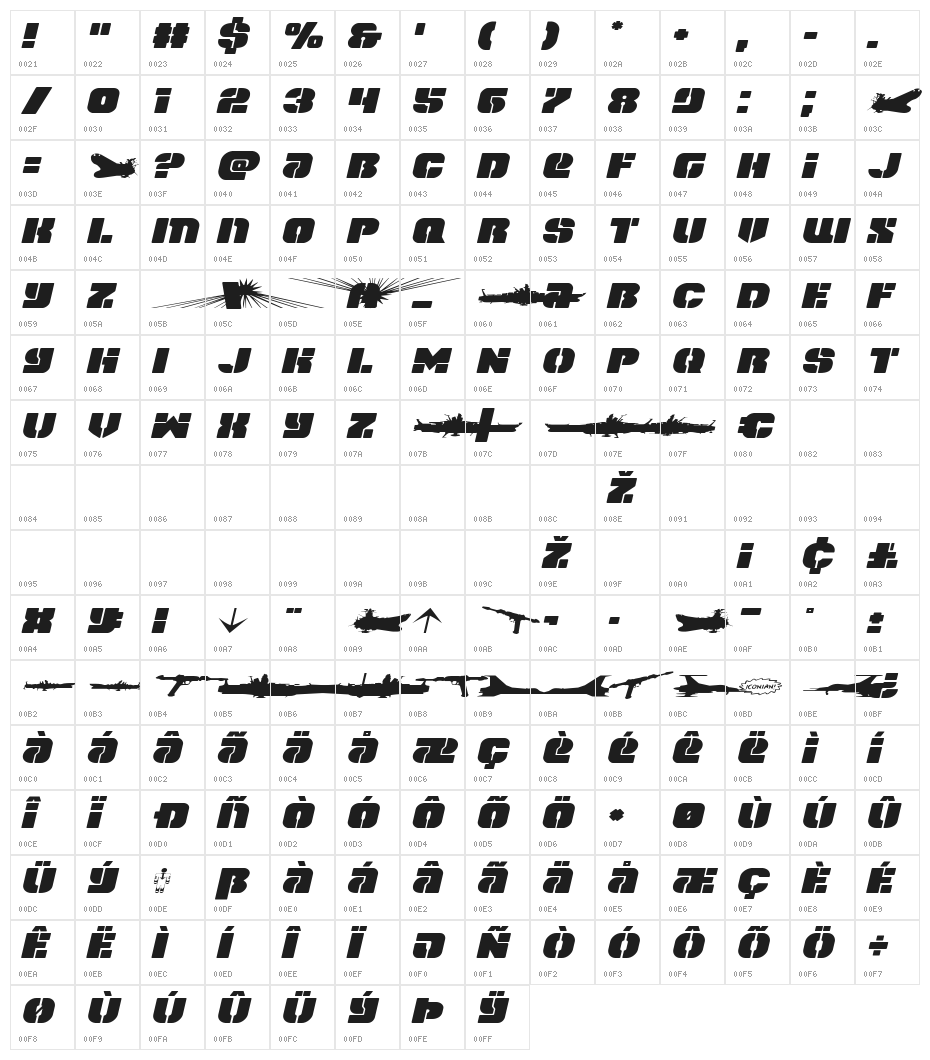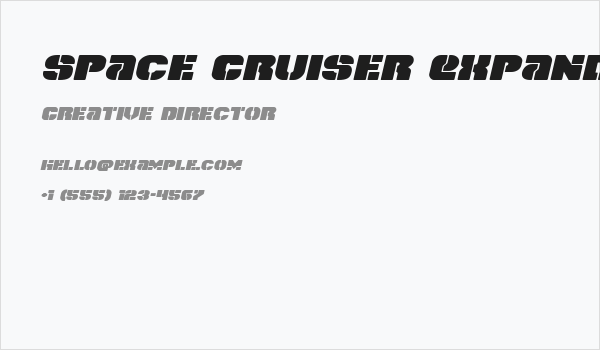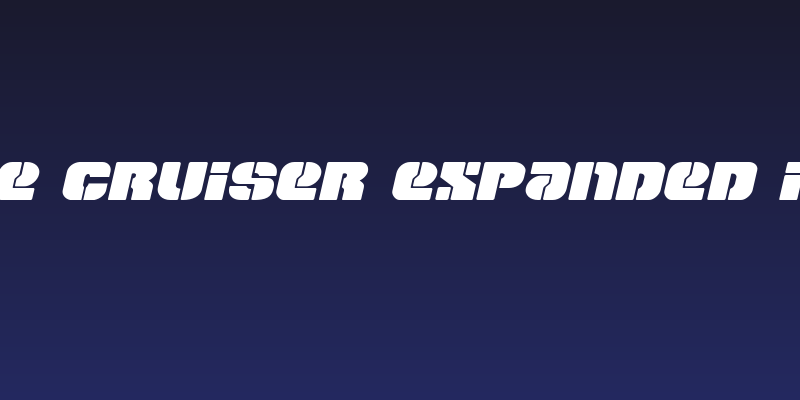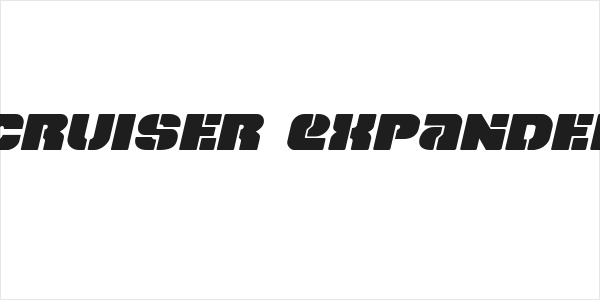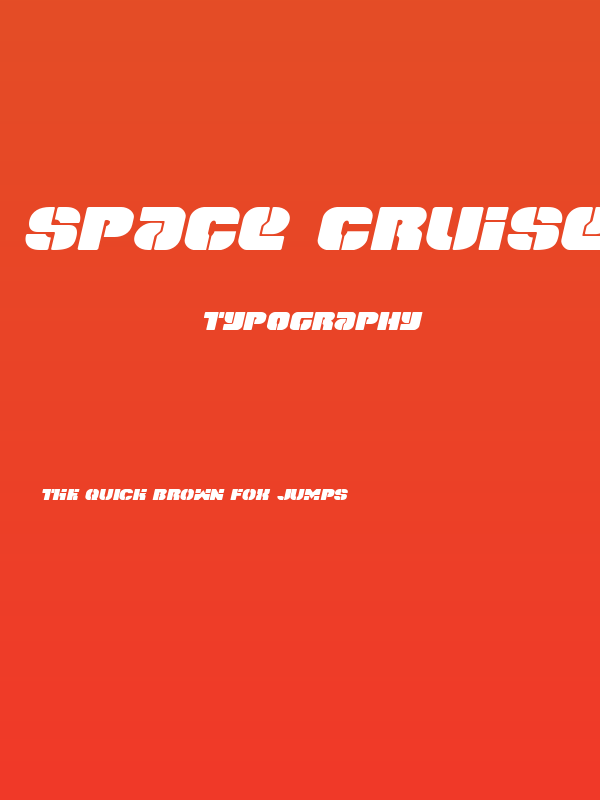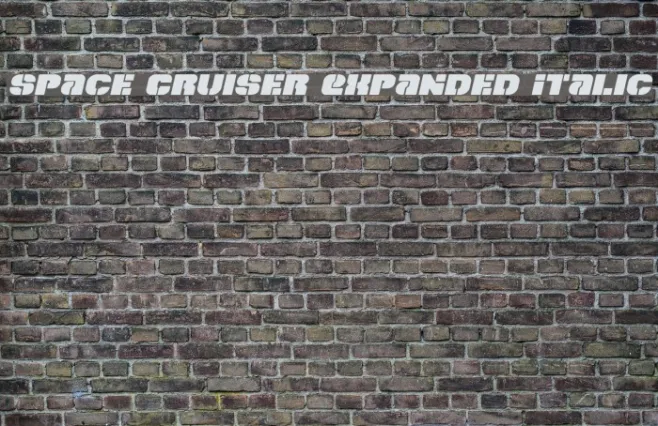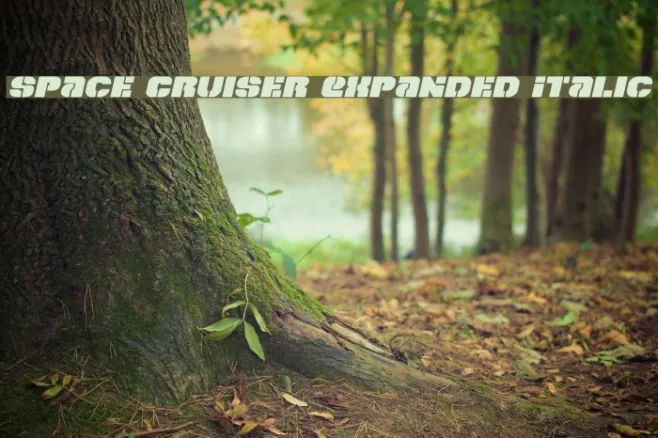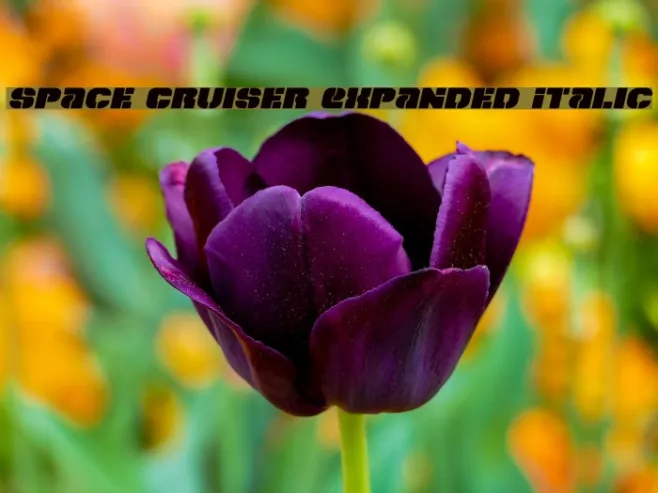
Space Cruiser Expanded Italic Font
Space Cruiser Expanded Italic Description
This font features a bold and futuristic design with a distinctly expanded and italicized style. The characters are wide and have a strong presence, making them ideal for attention-grabbing headlines. The geometric shapes and sharp angles give it a modern, space-age feel. The uniformity in stroke width across all characters provides a cohesive look, while the italic slant adds a dynamic and forward-moving energy. The font's unique style is both decorative and functional, suitable for projects that require a bold statement.
| Proposed Projects | Ideal for sci-fi themed posters, video game titles, futuristic branding, and technology-related advertisements. |